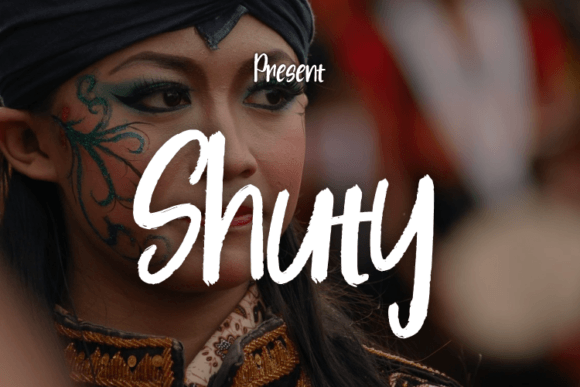
Unleash the beauty of your words with Shuty Font, a breathtaking script font designed to ignite creativity and transform your designs.
Enter a world of elegance and sophistication as Shuty's flowing lines and delicate curves dance across your projects, leaving a trail of visual enchantment. Its masterful craftsmanship captures the timeless essence of handwritten calligraphy, yet maintains a distinctly modern flair that resonates with contemporary design sensibilities.
Immerse yourself in the font's captivating charm, meticulously crafted by the talented Eric Kusuma, and experience the joy of elevating your projects to new heights. Whether you're a seasoned designer or just starting your creative journey, Shuty Font is the perfect companion, ready to add a touch of magic to your every endeavor.
Indulge in the versatility of Shuty, a font that effortlessly adapts to a myriad of design styles. Its graceful strokes lend themselves perfectly to branding, logos, wedding invitations, social media posts, and so much more. Unleash your creativity and watch as Shuty transforms your projects into stunning works of art that captivate and inspire.
Don't miss this opportunity to embrace the beauty of Shuty Font and elevate your designs to new heights. Experience the transformative power of its exquisite lines and curves today. Let Shuty be your muse and guide your creative journey towards excellence.